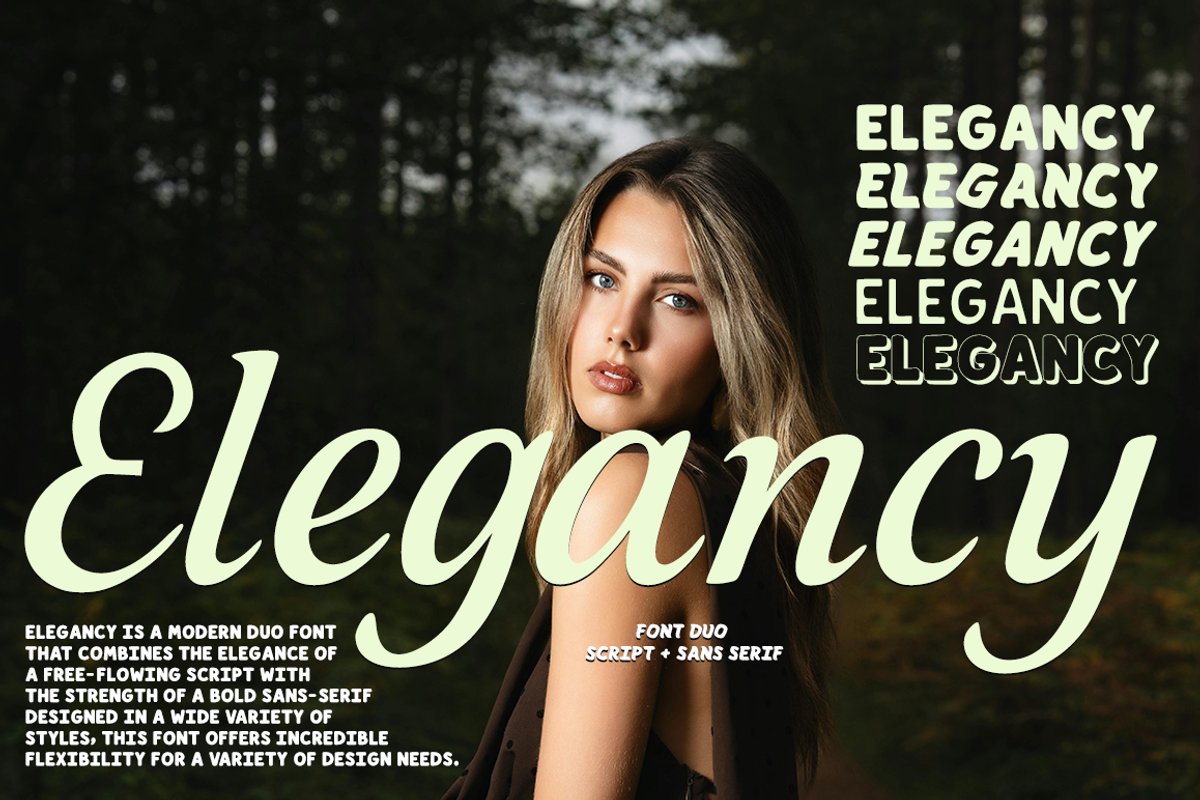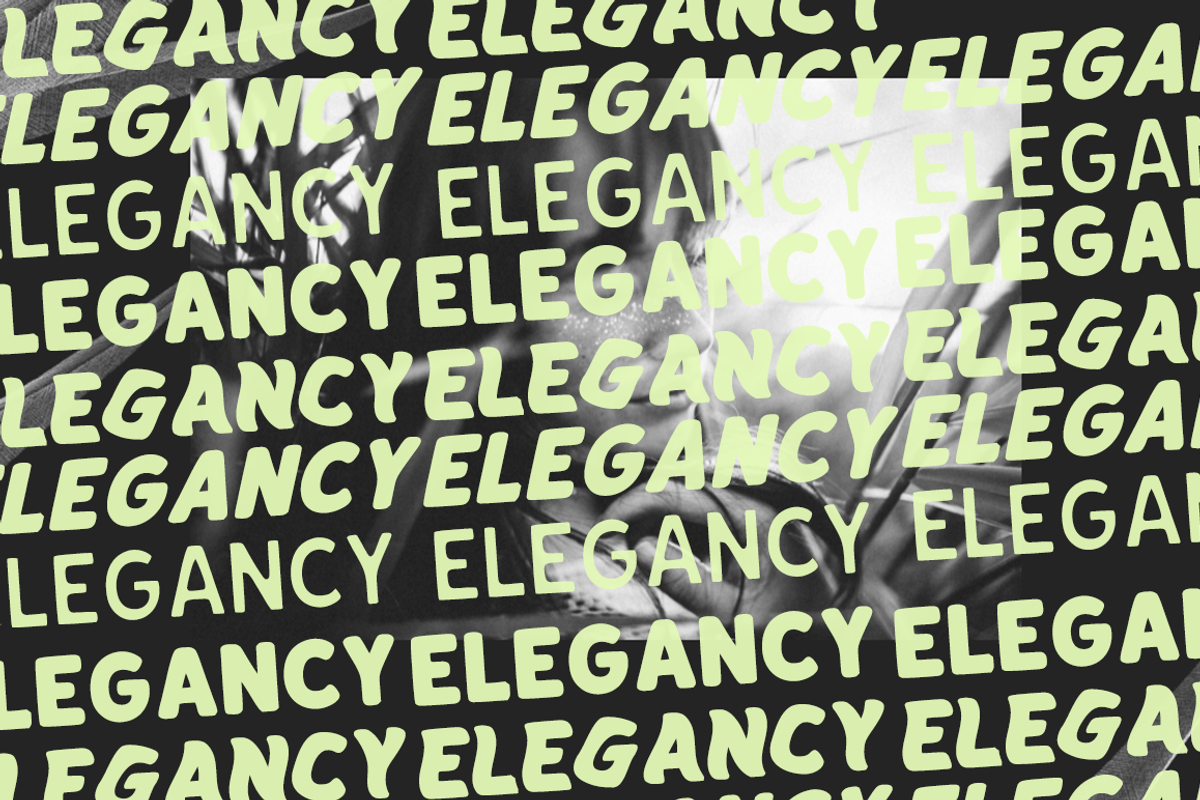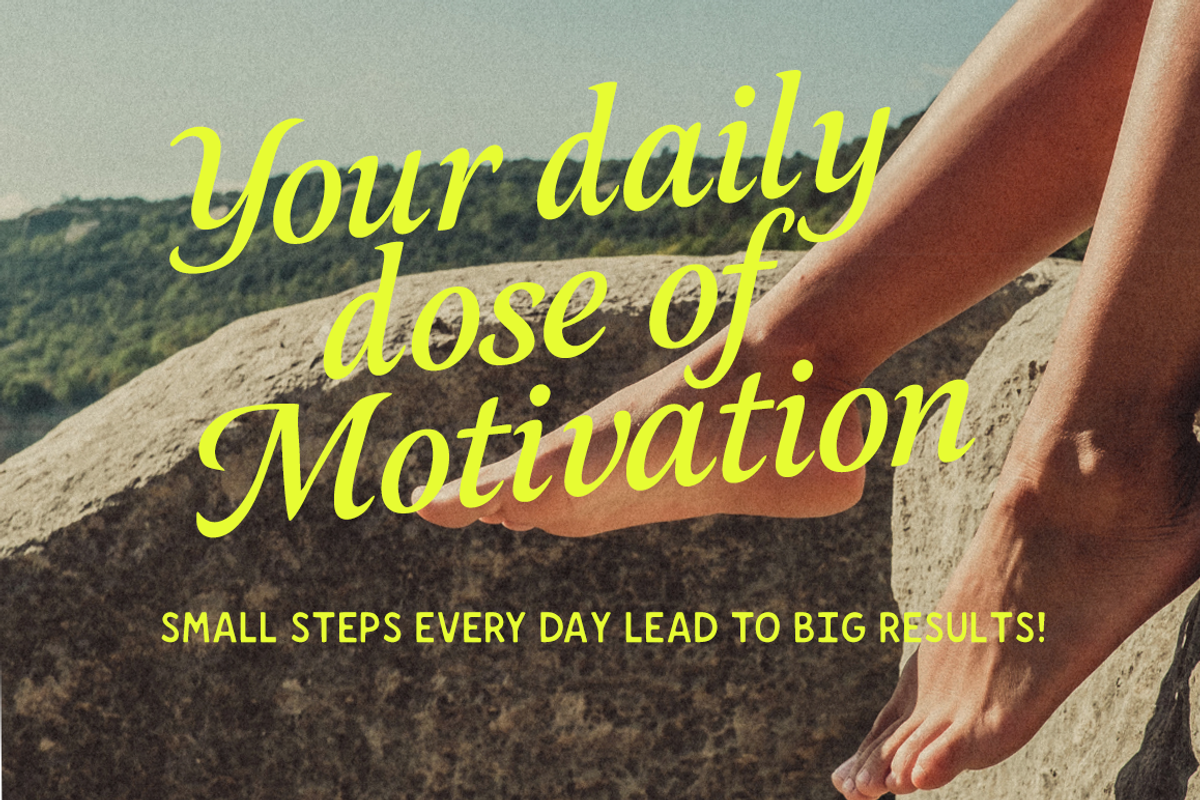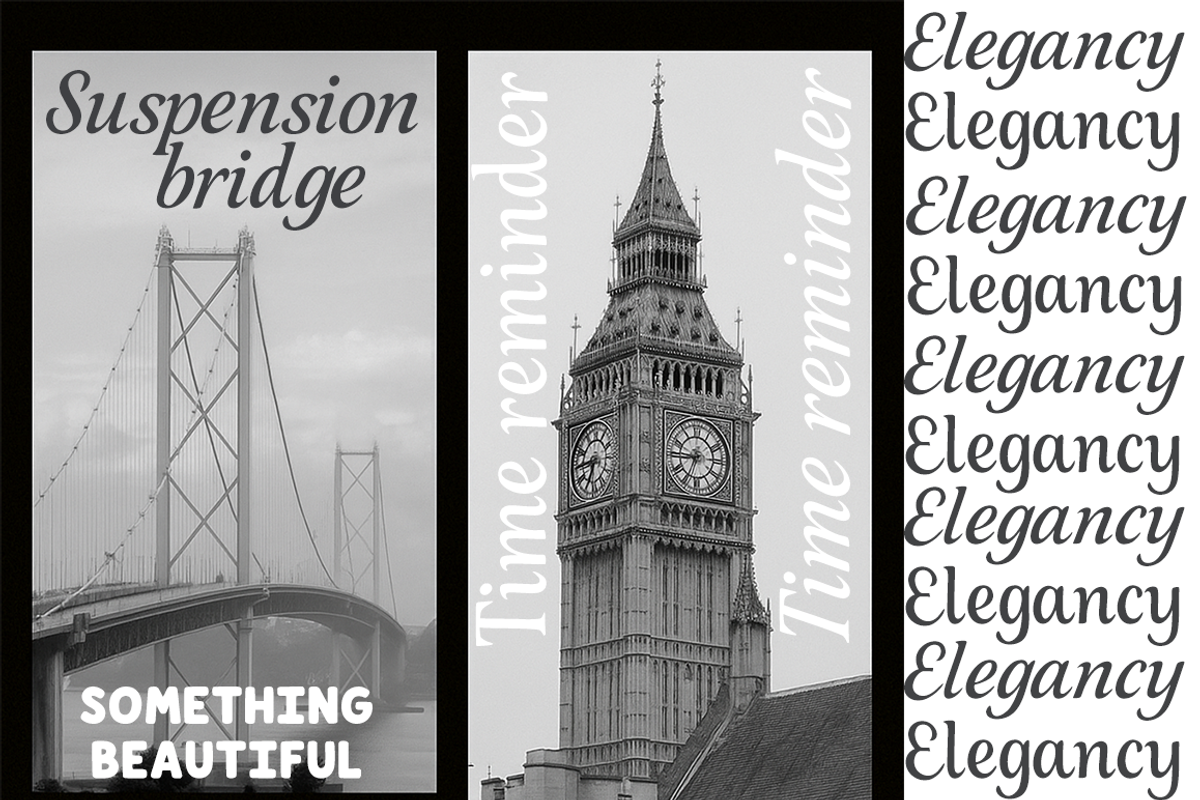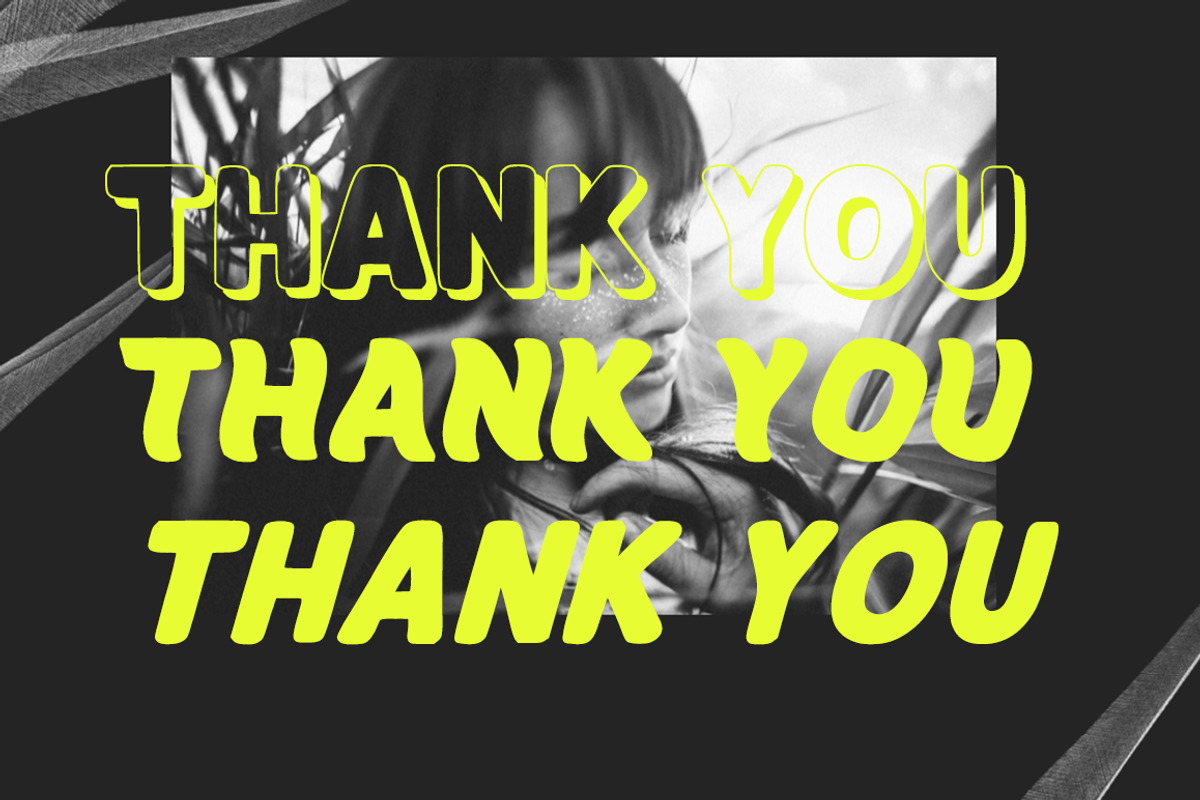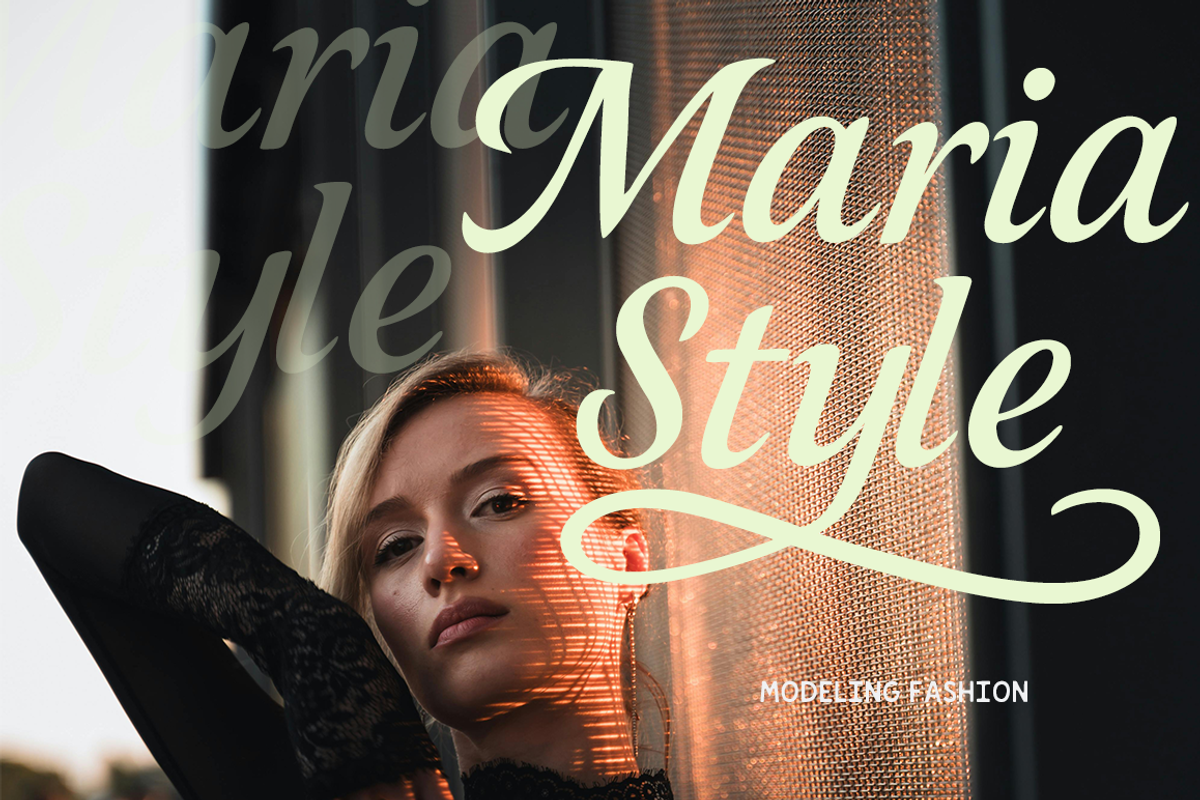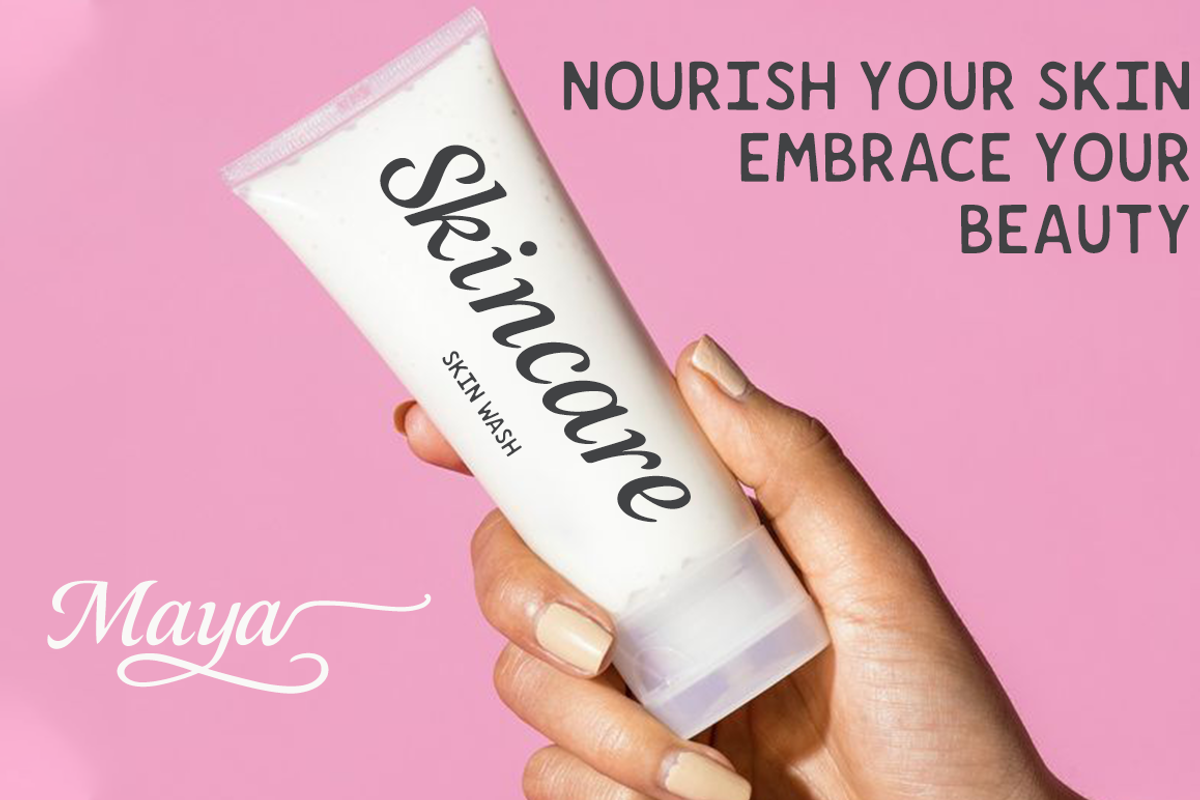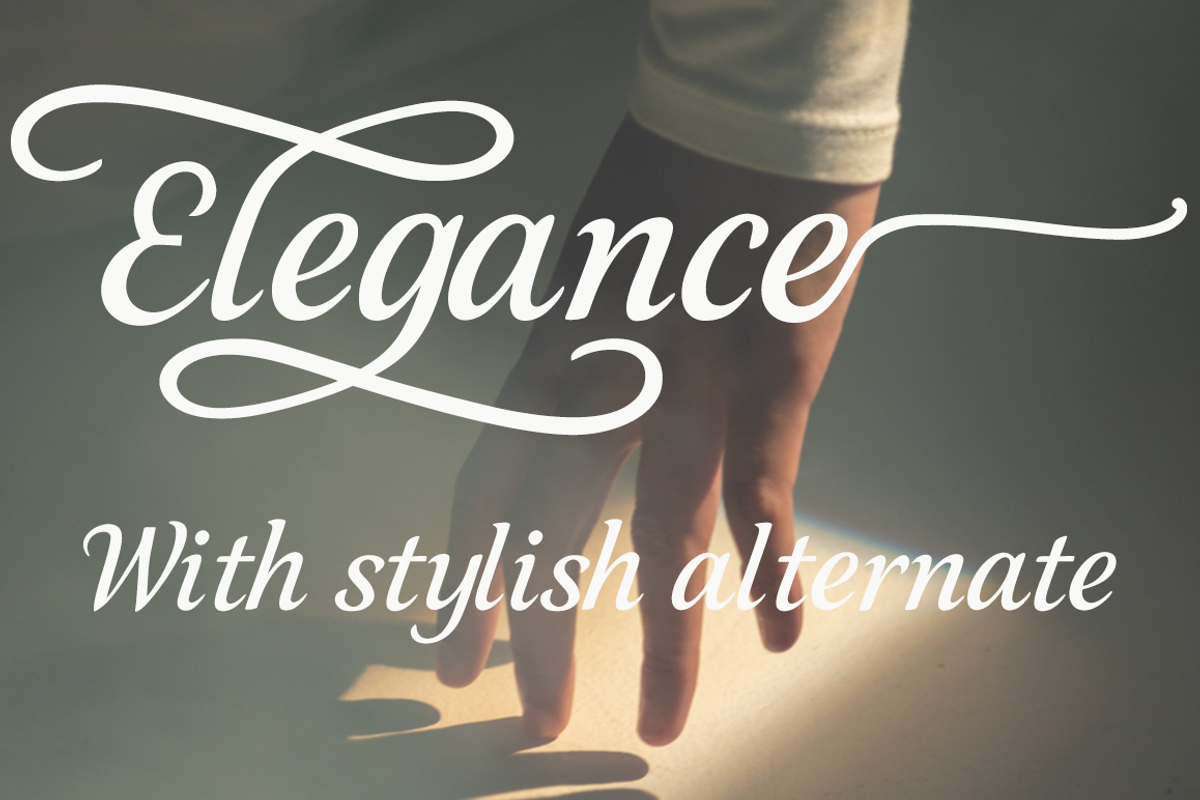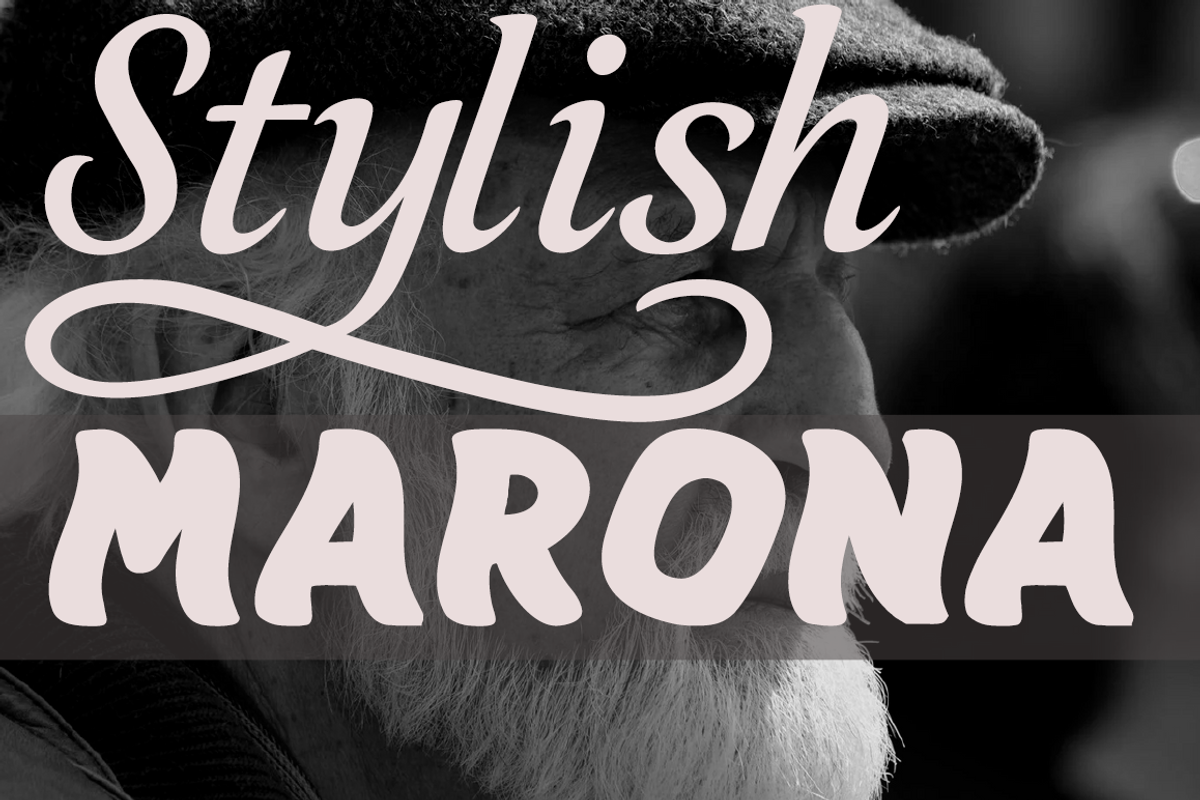
Elegancy font duo
Elegancy is a modern duo font that combines elegant script with a bold sans serif. Featuring numerous styles and typographic variations, this font is versatile for branding, invitations, packaging, and even social media, bringing a luxurious and professional feel to any design.